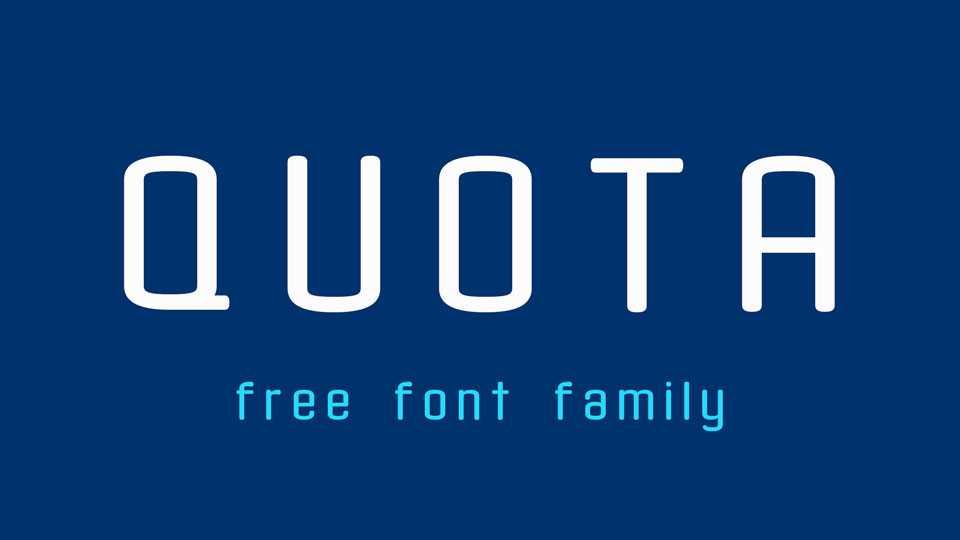
Download Quota typeface, is a playful and modular approach to traditional monospaced faces font family in 12 styles Quota font family is great for branding, headlines and text blocks, tech and web designs and much more.
Designer: Ryan Williamson